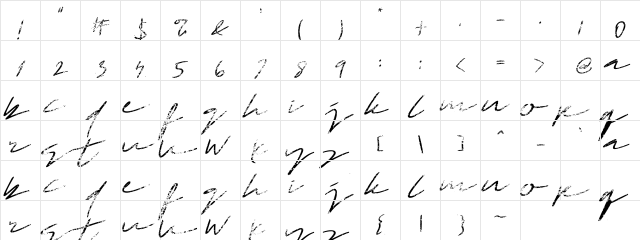
Fastfood Brush
Design Context for Fastfood Typeface
Fastfood brings a calligraphic fluidity to the page — its connecting strokes and expressive curves give it an unmistakably human quality.
Font Pairing: Combine Fastfood with a simple geometric sans for maximum contrast — the tension between flowing curves and clean structure is a classic typographic pairing.
Pro Tip: Pair Fastfood with a clean sans-serif for supporting text. The contrast between fluid script and geometric structure creates an elegant typographic hierarchy.